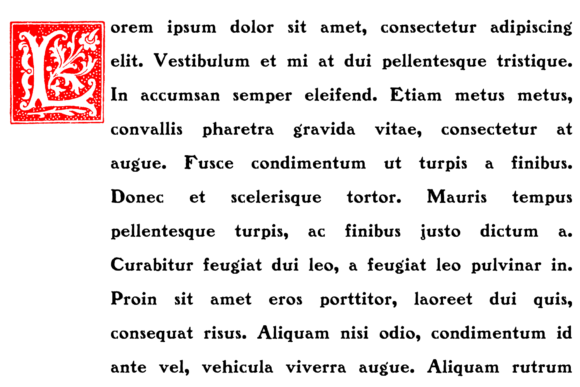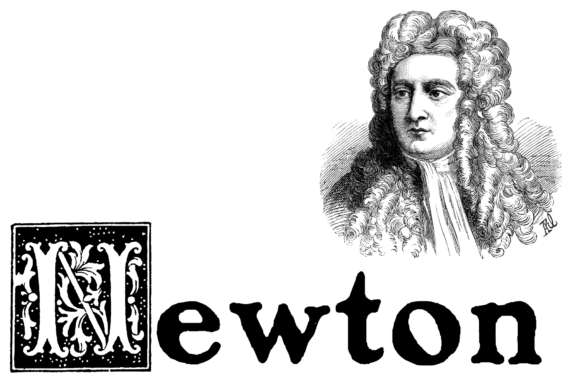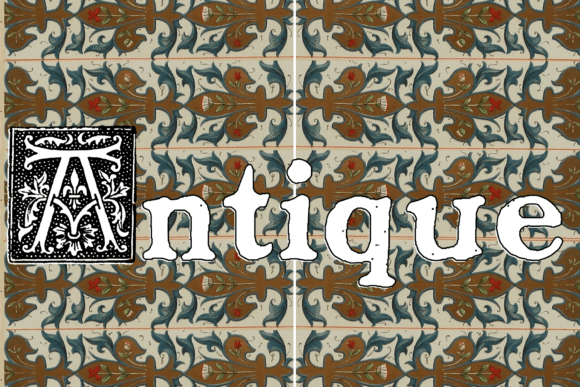
Benjamin Franklin Font
If you’re looking for a stylish and versatile font duo for your design projects, this is a great choice: Benjamin Franklin PLUS XVI Century Shaw Woodcuts This font set features the old book-style alphabet from Benjamin Franklin with our best-seller illuminated style font XVI Century Shaw Woodcuts, which work together to create an elegant and sophisticated visual, like in the old books, parchments, and manuscripts from medieval times.Benjamin Franklin is a historical font family.XVI Century Shaw Woodcuts was designed around an antique theme: Tuscan initials used in the beginnings of very old texts in rare books and works best when used for headers.